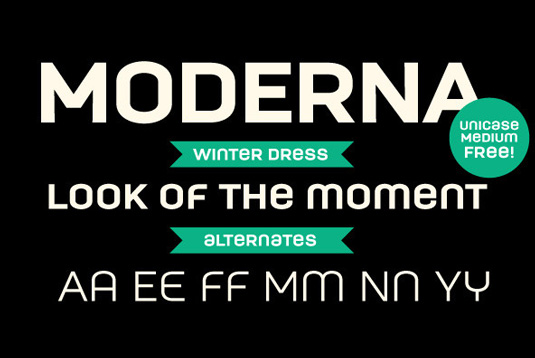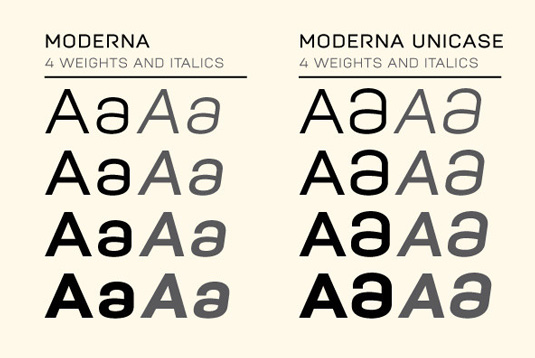
Font of the day: Moderna
Moderna by Mendoza Vergara
Inspired by the simplicity of Modernism, Moderna is a sans serif font family. Available from YouWorkFromThem, the team describes the design as having a "neutral and clean construction, specially designed for short texts, headlines, logos and branding".